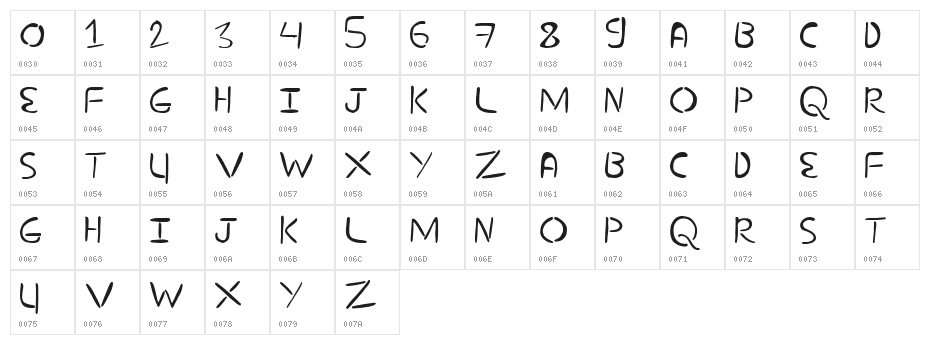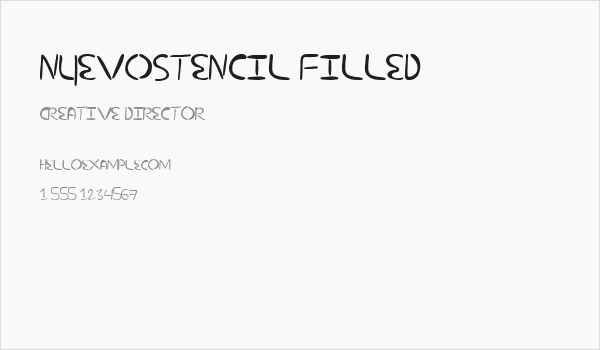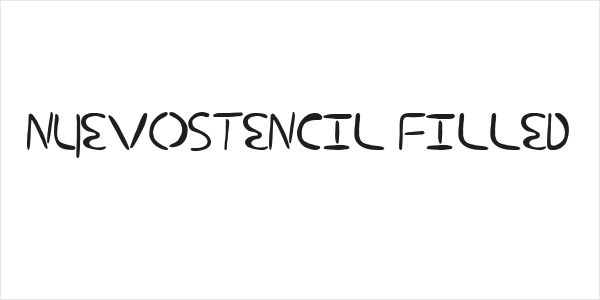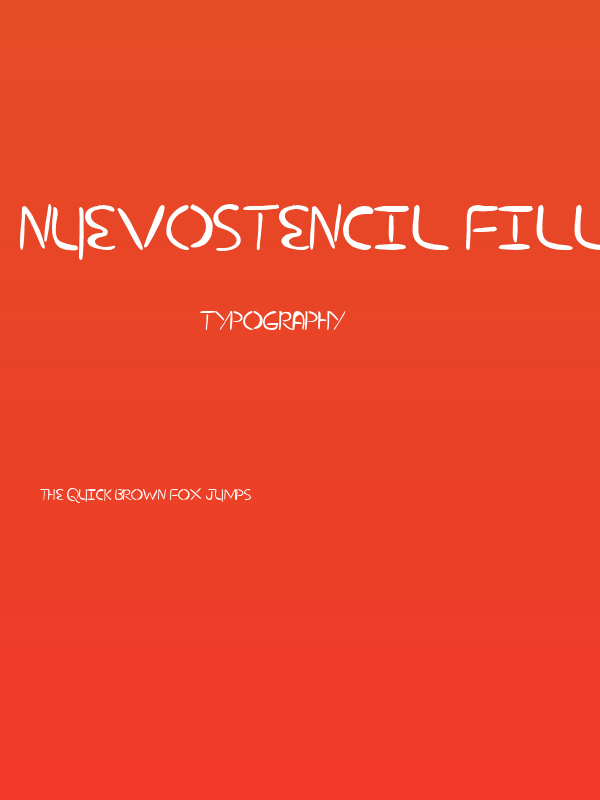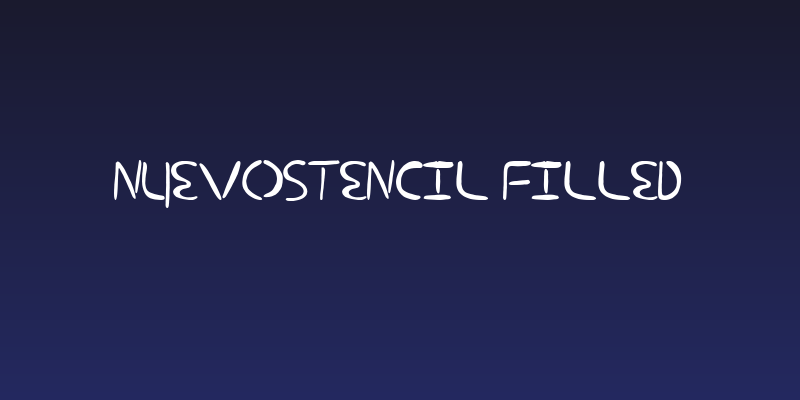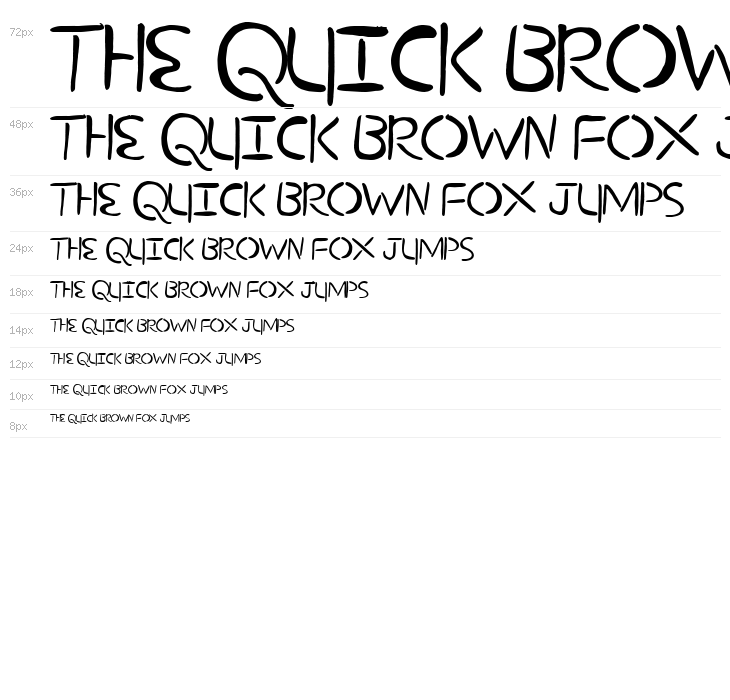
nuevostencil filled Font
nuevostencil filled Description
This font features a bold and dynamic stencil design, characterized by its filled, rounded edges and distinct cut-out sections that create a modern and artistic appearance. The uppercase letters are uniform in height, with a playful yet structured form that adds a sense of movement and energy. The lowercase letters maintain the same stylistic approach, ensuring consistency across all characters. The numerals are equally bold, with a unique flair that complements the overall aesthetic. This font is ideal for projects that require a contemporary and eye-catching look, such as branding, posters, and creative designs.
| Proposed Projects | Ideal for branding, posters, creative designs, and any project needing a modern, eye-catching font. |